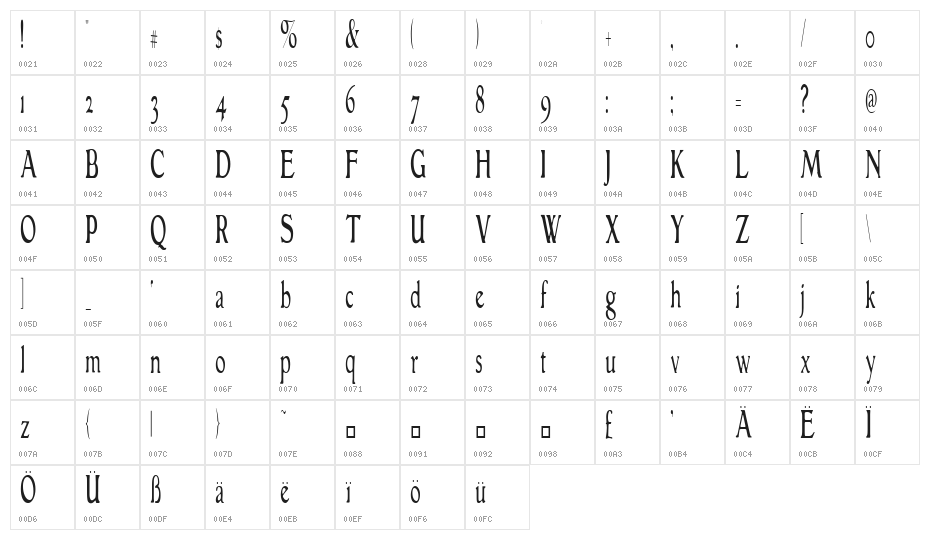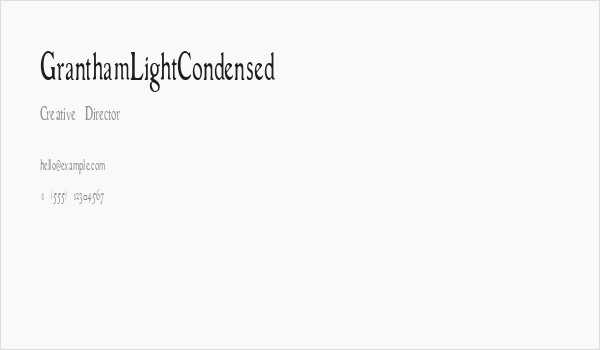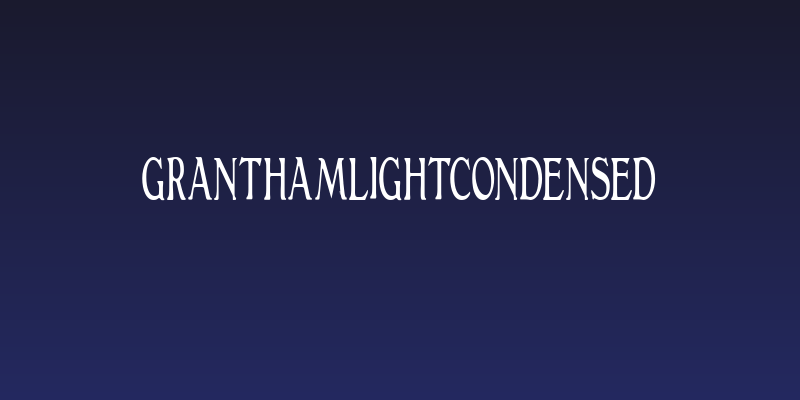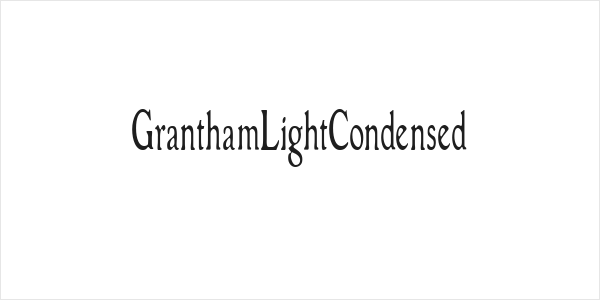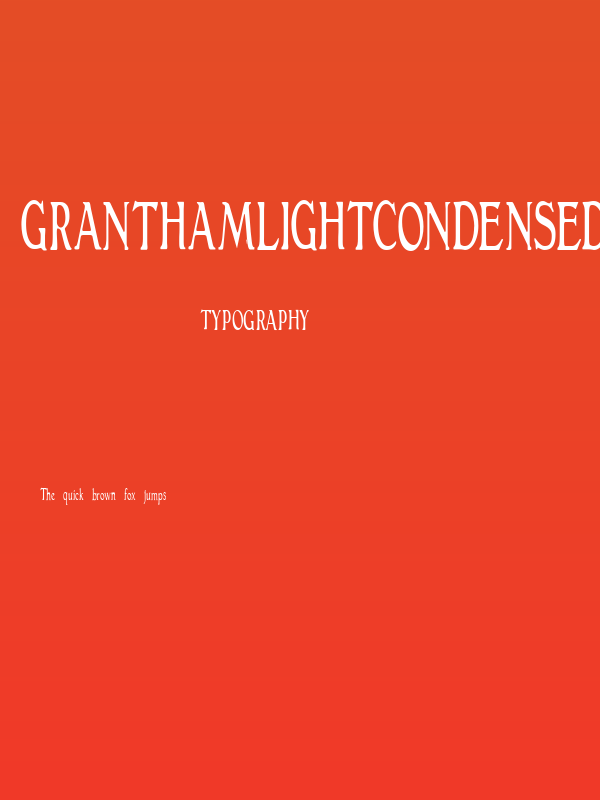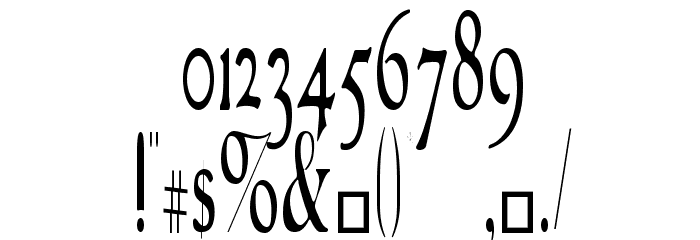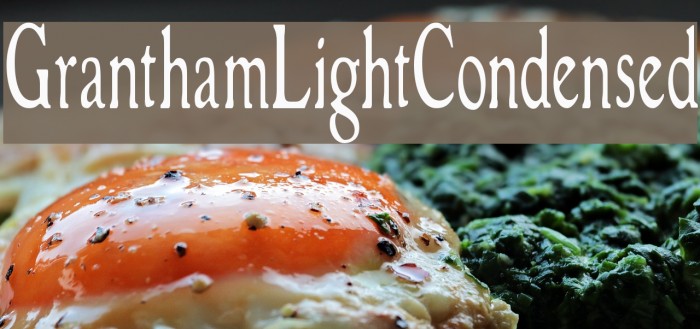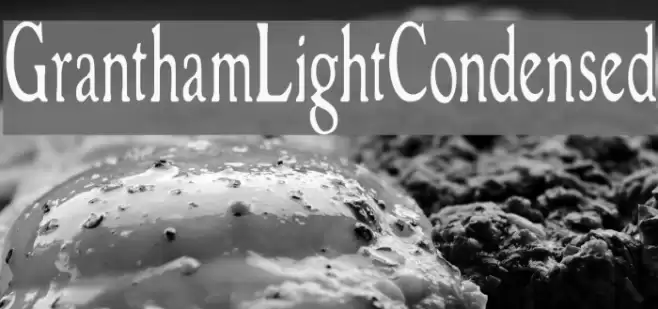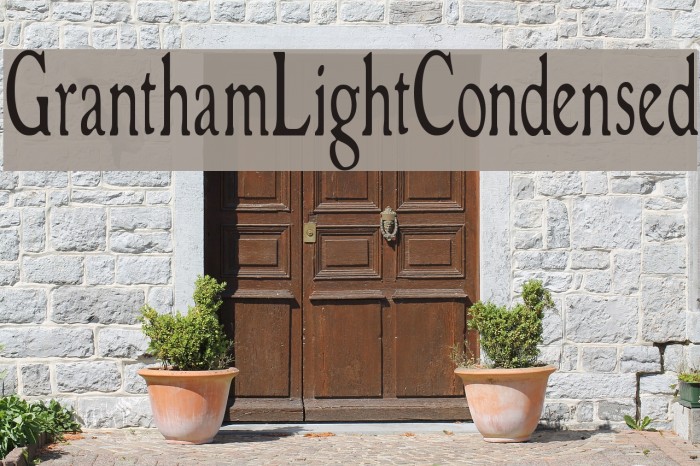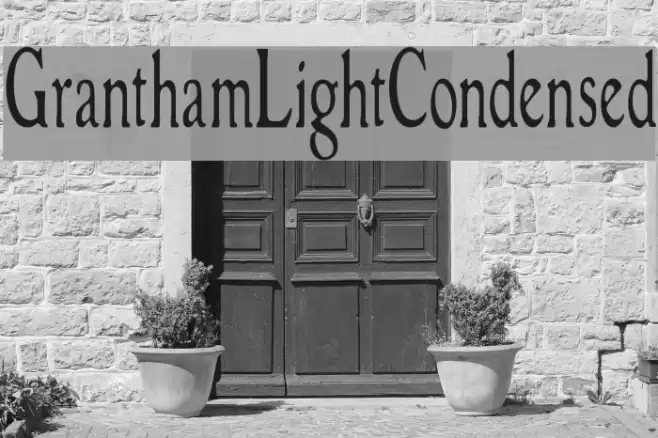
GranthamLightCondensed Font
GranthamLightCondensed Description
This typeface features a classic serif style with a condensed width, giving it an elegant and sophisticated appearance. The characters are designed with a light weight, providing a delicate and refined look. The uppercase letters are tall and narrow, while the lowercase letters maintain a consistent style with slightly more rounded forms. The numerals are distinct and clear, ensuring readability. Special characters are included, maintaining the overall aesthetic of the font. The contrast in stroke thickness is medium, offering a balanced visual appeal. This font is suitable for projects that require a touch of elegance and tradition.
| Width | Condensed |
| Overall Style | Classic |
| Use Case | Headlines, Invitations, Branding |
| Proposed Projects | Ideal for wedding invitations, formal event programs, elegant branding, and classic book covers. |